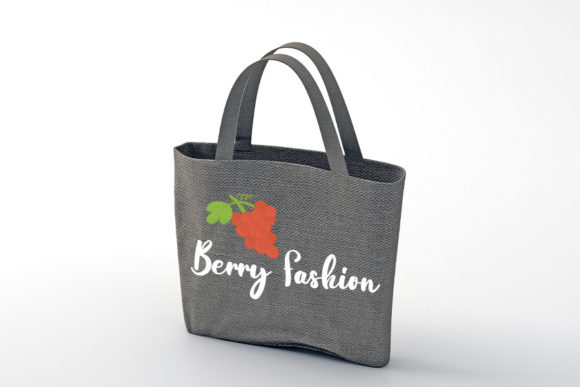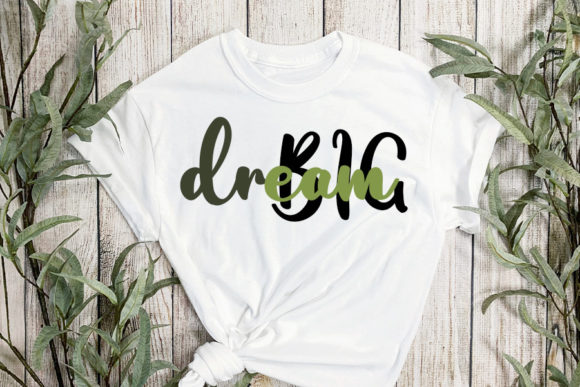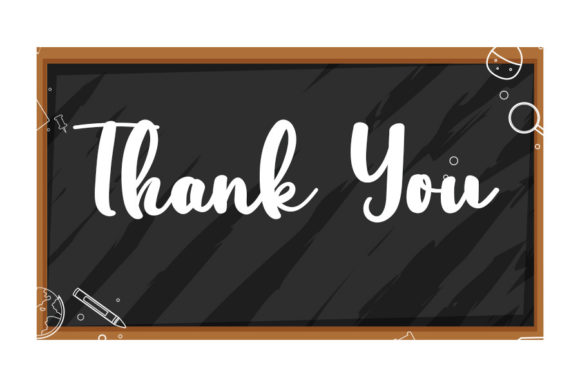
Discover the Allure of Beauty California Font
Have you ever found yourself scrolling through design inspiration boards, mesmerized by the delicate script fonts that seem to whisper elegance and sophistication? That’s exactly what happened to me, and it led me to discover the Beauty California Font – a lovely and refreshing script font that’s perfect for adding a touch of class to your designs.
Beauty California Font was crafted with the intention of bringing a sense of serenity and refinement to any design project. Its gentle curves and elegant lines make it an ideal choice for designers who want to create beautiful and harmonious visual experiences. Whether you’re working on a wedding invitation, a brand identity, or a blog post, Beauty California Font is sure to bring a touch of sophistication to your designs.
Beauty California Font Key Features
- Font Family: Beauty California is a unique, hand-drawn script font designed to evoke the charm of classic California.
- Resolution: The font is designed to be legible at high resolutions, making it perfect for use in print, web, and digital applications.
- Unique Characteristics: The font features elegant, flowing lines, and subtle imperfections that give it a distinctive, hand-crafted feel.
Designer Review: Beauty California Font
Overall, I think the Beauty California Font is a visually appealing option for designers looking to add a touch of elegance to their projects. ✨ The font’s curves and rounded edges give it a friendly, approachable feel that’s perfect for beauty and lifestyle brands.
Some of the key strengths of the Beauty California Font include:
- Legibility: The font is easy to read, even at smaller sizes.
- Customizability: The font offers a range of weights and styles, making it easy to find the perfect fit for your project.
- Creativity: The font’s unique design elements, such as the swashes and flourishes, add a touch of personality to your typography.
- Overuse: The font’s elegance can quickly become cliche if overused. It’s essential to balance the font with other design elements to avoid visual fatigue.
- Flexibility: While the font is customizable, it may not be the best choice for projects that require a more modern or edgy aesthetic.
Overall, I think the Beauty California Font is a solid choice for designers looking to add some sophistication to their projects. While it may not be the best fit for every project, it’s a versatile and stylish option that’s sure to please.
Tips for Getting the Most Out of Beauty California Font
For optimal results, use the Beauty California Font in conjunction with elegant and minimalist design elements. This font is particularly well-suited for wedding invitations, fashion branding, and luxury product designs.
The Beauty California Font is commonly used for:
- Fashion branding and advertising
- Luxury product designs and packaging
- High-end
Alternatives to Beauty California Font
Bodoni is a classic serif font known for its elegant and sophisticated look. It’s ideal for use in high-end fashion, luxury brands, and any design that requires a touch of sophistication. Compared to Beauty California Font, Bodoni has a more formal and traditional feel, whereas Beauty California Font is more casual and playful.